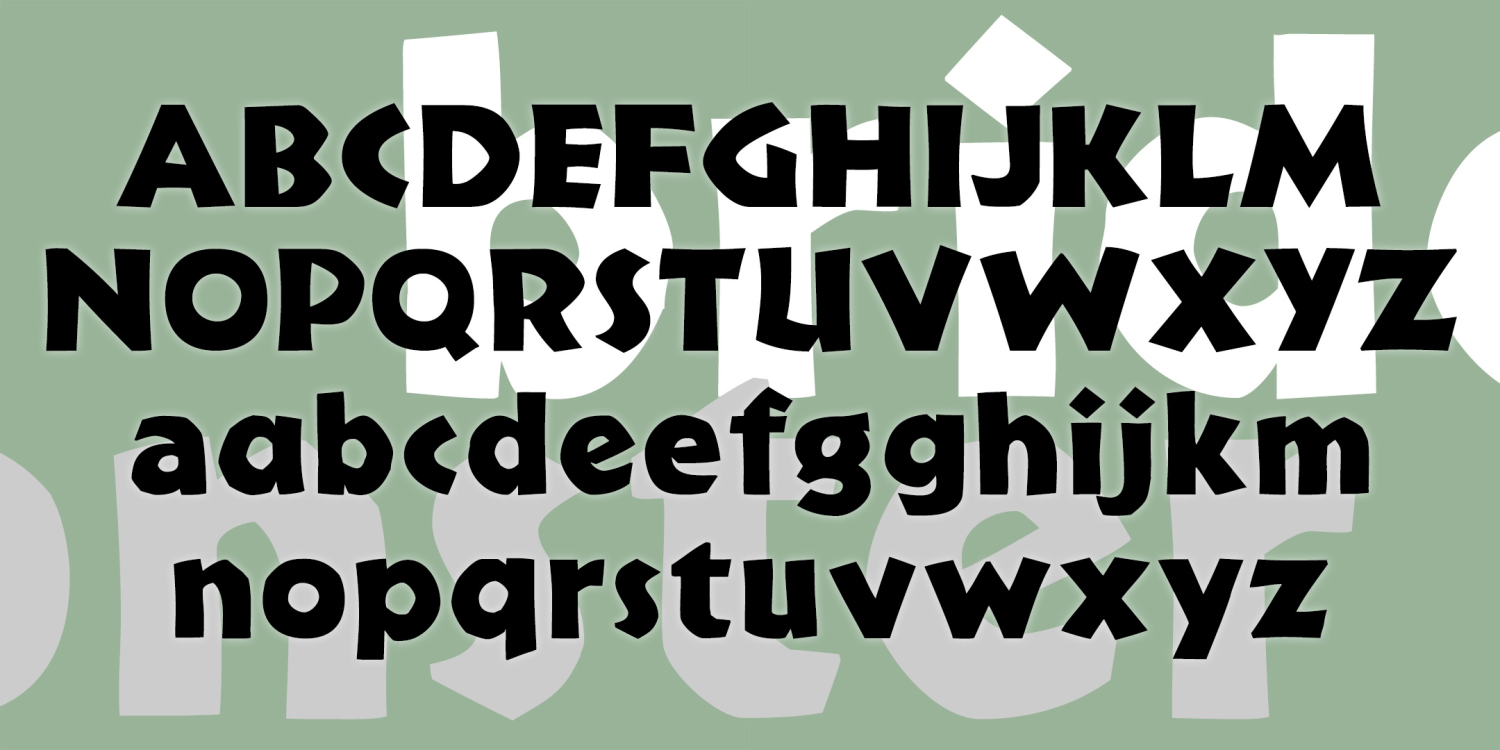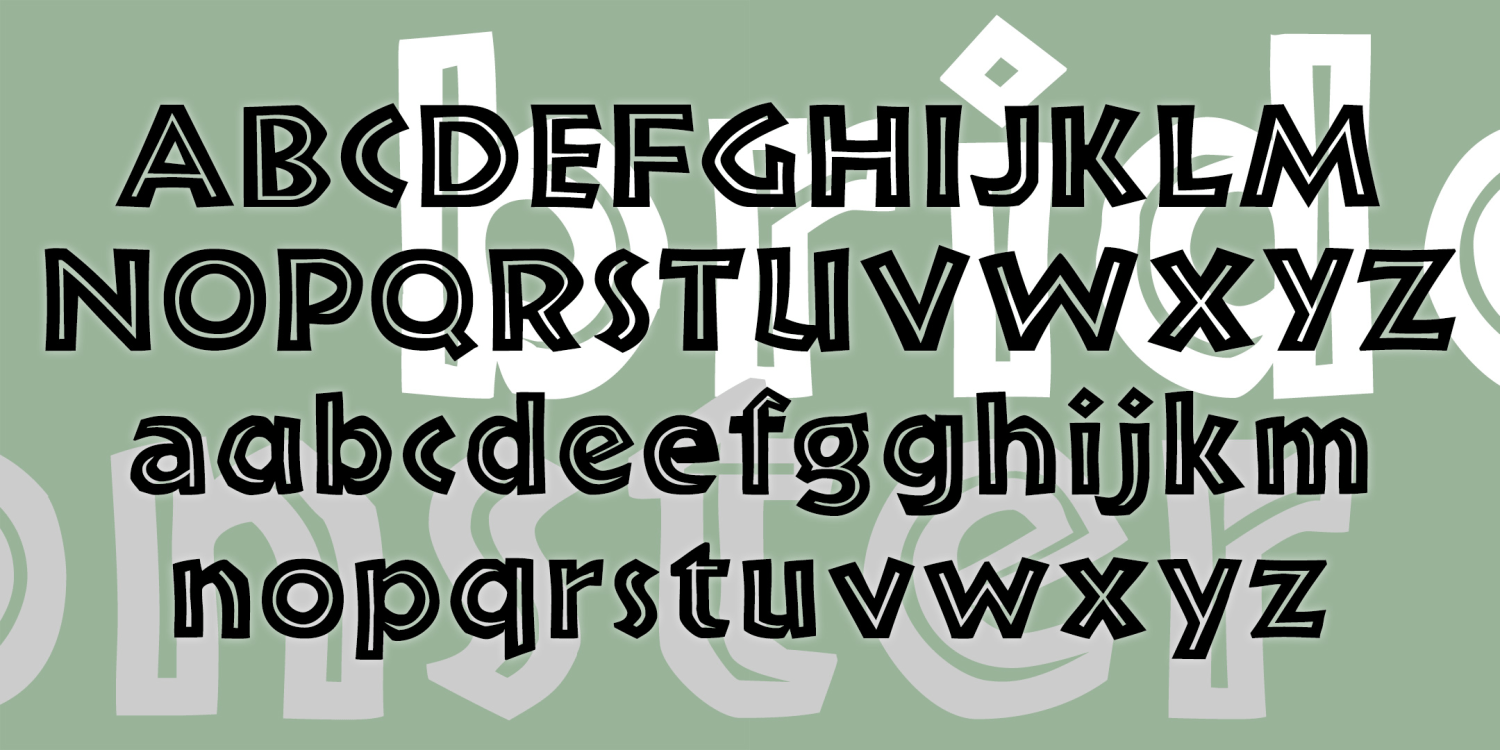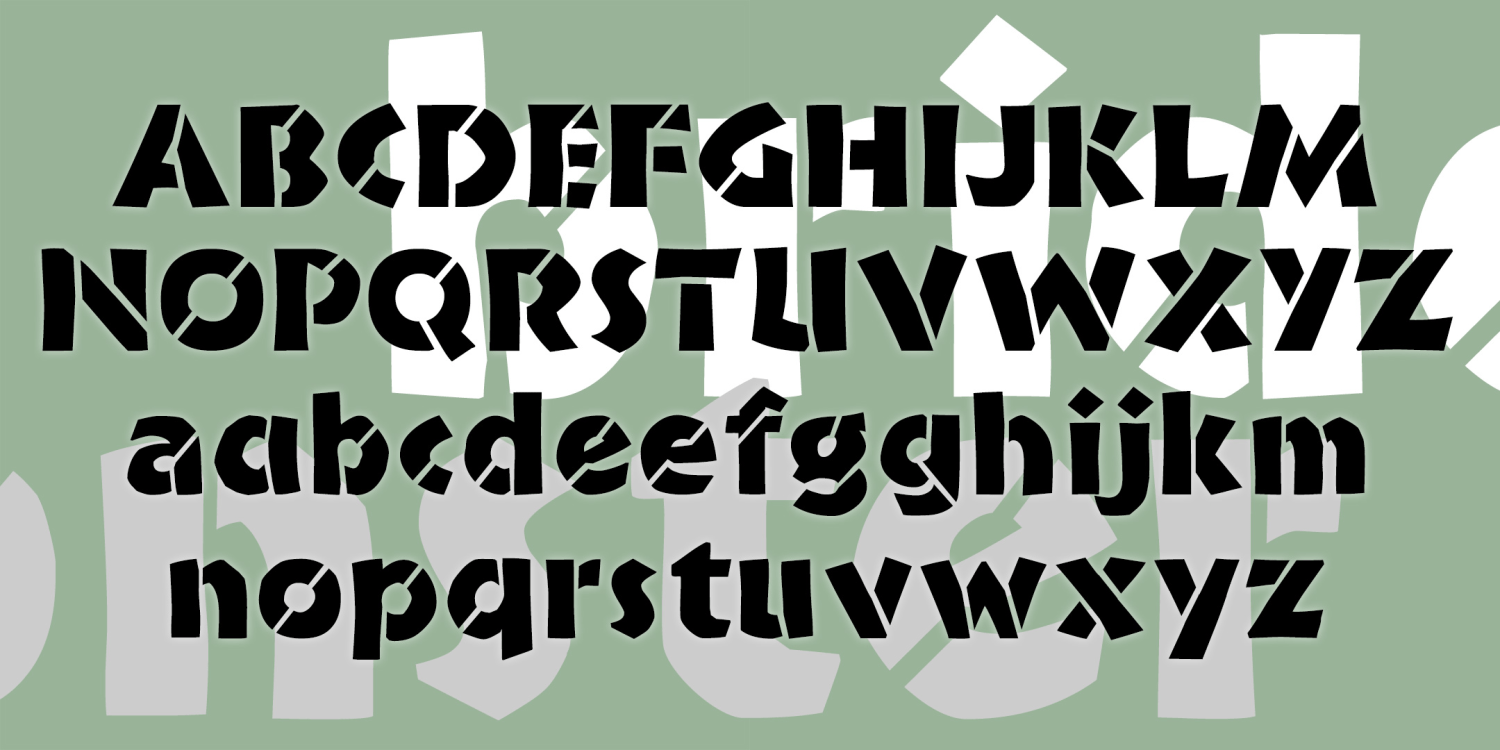
Bride of the Monster Family
Font Bundle by Harold's Fonts
The BIRDE OF THE MONSTER fonts are bold and rough-hewn. They were inspired by the trailer of the 1935 classic film Bride of Frankenstein; the hand-lettered movie titles strongly resemble Rudolph Koch's NEULAND, which historically only contained capital letters.
I have created companion fonts with Outline and Stencil effects.
Bride Regular
Bride Alt
Bride Inline
Bride Inline Alt
Bride Stencil
Bride Stencil Alt